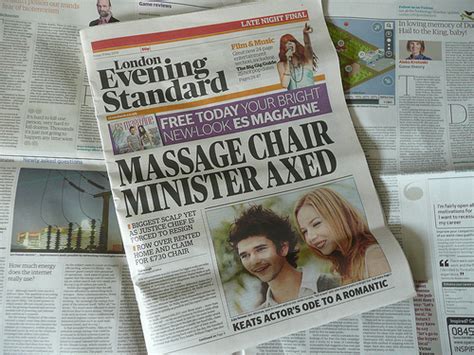
Standard Newspaper Font Size: A Quick Guide
Hey guys! Ever wondered about the standard newspaper font size and why it matters so much? It’s not just about making the text readable, but it plays a huge role in how we consume information. Think about it – if the font is too small, you’ll probably skip that article, right? Or if it’s too big and clunky, it might feel overwhelming. Newspapers have been around for ages, and over time, they’ve figured out this delicate balance. They’ve landed on specific font sizes that work best for most readers, considering everything from eyesight to the physical act of holding and reading a newspaper. Let’s dive deep into the world of newspaper typography and uncover the secrets behind those seemingly simple text choices.
Why Font Size Matters in Newspapers
So, why all the fuss about font size, especially in newspapers? It’s all about readability , plain and simple. Newspapers are designed to be consumed quickly. People often read them on the go, during their commute, or over a cup of coffee. If the font is too tiny, readers will struggle, get frustrated, and might just give up. This is where the standard newspaper font size comes into play. It’s a carefully chosen range that ensures most people, regardless of age or visual acuity, can comfortably read the content without straining their eyes. Think about older readers who might have presbyopia (age-related farsightedness) – a slightly larger font size makes a world of difference for them. Conversely, a font that’s too large can make the page look cluttered and can limit the amount of information that fits. Editors and designers have to consider the visual hierarchy of the page. Larger, bolder fonts are often used for headlines to grab attention, while body text needs to be accessible for sustained reading. The choice of font size also impacts the overall aesthetics of the newspaper. A well-proportioned layout with appropriate font sizes feels professional and inviting. Too much text crammed onto a page can feel intimidating, while too little can make the paper feel sparse. It’s a balancing act that involves understanding human perception and the practicalities of reading a physical medium. The goal is to keep readers engaged with the content, and font size is a critical, often overlooked, element in achieving that. It’s not just about what is being said, but how it’s presented, and font size is a key part of that presentation.
The Typical Newspaper Font Size Range
Alright, let’s get down to the nitty-gritty: what is the typical standard newspaper font size ? Generally, you’ll find that the body text in most newspapers falls within the range of 8 to 11 points . Yeah, you heard that right! It might seem small when you look at it on a screen, but in print, especially with the paper quality and layout of a newspaper, this range works wonders. The most common size you’ll likely encounter for the main articles is around 9 to 10 points . This sweet spot offers a good balance – it’s large enough for decent readability without taking up too much precious real estate on the page. Headlines, of course, are a different story. They need to be bold and grab your attention from across the room! So, you’ll see headline fonts ranging anywhere from 14 points to as high as 72 points or even more for the main masthead. Subheadings and captions usually sit somewhere in between, perhaps 11 to 13 points, to distinguish them from the main text but keep them connected. It’s fascinating how these small numerical differences can have such a big impact. Designers often experiment with different fonts too, as the x-height (the height of lowercase letters like ‘x’) can make a 9-point font look bigger or smaller than another 9-point font. So, while the point size is a good general guide, the actual visual size can vary slightly. But for the core content, that 8-11 point range, with 9-10 being the superstar, is the standard you’ll see time and again. It’s a tried-and-true formula that has served newspapers well for decades in delivering news effectively to millions of readers every single day.
Factors Influencing Font Size Choices
Now, what goes into deciding that specific standard newspaper font size ? It’s not like someone just picked a number out of a hat, guys! Several key factors influence these choices, and they all boil down to making the reading experience as smooth as possible. First off, we’ve got readability and legibility . This is paramount. The font needs to be easily distinguishable, with clear letterforms that don’t blur together, especially when printed on newsprint, which can sometimes be a bit… absorbent. A font that’s too condensed or has very thin strokes might get lost. Then there’s the target audience . Newspapers aim for broad appeal. They want everyone to be able to read their paper, from teenagers to grandparents. This means considering a range of visual abilities. A slightly larger font size is more forgiving for readers with less-than-perfect vision. Think about the newspaper’s layout and column width . Newspapers typically use narrow columns to make it easier for the eye to track from the end of one line to the beginning of the next without getting lost. Shorter line lengths require smaller font sizes to maintain a comfortable reading rhythm. If the columns were super wide like a book, you’d need a much larger font to avoid awkward eye movements. Printing limitations also play a role. Early printing presses and paper quality might have dictated certain font sizes. While modern technology offers more flexibility, historical practices and established conventions still hold sway. Aesthetics and brand identity are important too. The chosen font and its size contribute to the newspaper’s overall look and feel. Is it perceived as a serious, traditional paper, or a more modern, edgy publication? The font choices help communicate that. Finally, cost and space efficiency are always on the table. Newspapers have a finite amount of space on each page. Choosing a font size that balances readability with the amount of content that can fit is crucial for fitting in all the necessary news, advertisements, and features without making the paper excessively thick or expensive to produce. It’s a complex equation, but one that designers and editors have mastered over the years to deliver the news effectively.
Common Fonts Used in Newspapers
Beyond just the size, the actual font used also significantly impacts the standard newspaper font size experience. You won’t see Comic Sans in your daily paper, right? Newspapers tend to stick with reliable, legible typefaces that have stood the test of time. The most common category you’ll find is serif fonts . These are fonts with little ‘feet’ or decorative strokes at the ends of the letters, like Times New Roman or Georgia. Serif fonts are traditionally considered highly readable for long blocks of text because the serifs help guide the eye along the line. Think of them as little signposts for your eyes! Some of the classic newspaper fonts include Times New Roman , Garamond , and Baskerville . These have been used for decades, lending a sense of tradition and authority. More modern newspapers might opt for slightly tweaked versions or different serif families like Merriweather or Source Serif Pro to give a contemporary feel while retaining readability. On the other hand, some publications, especially those aiming for a cleaner, more modern aesthetic, might experiment with sans-serif fonts (fonts without the little feet, like Arial or Helvetica) for their body text. However, this is less common for the main body copy of traditional newspapers. Sans-serif fonts are often preferred for headlines, captions, or digital interfaces due to their clean, straightforward appearance. But for dense newsprint, the consensus often leans towards the readability offered by serif typefaces. The choice of font also depends on its x-height . As mentioned before, a font with a larger x-height will appear bigger and potentially more readable at the same point size compared to a font with a smaller x-height. So, a 9-point font of one family might look quite different from a 9-point font of another. Ultimately, the goal is to select a font that, at the chosen standard newspaper font size , delivers maximum clarity and a comfortable reading experience for the widest possible audience. It’s a blend of historical preference, typographic expertise, and a dash of modern adaptation.
Historical Evolution of Newspaper Typography
The standard newspaper font size and style we see today haven’t always been the norm, guys. Typography in newspapers has evolved dramatically over centuries, mirroring technological advancements and changing reading habits. In the early days of printing, typefaces were often larger and more ornate, partly due to the limitations of the printing technology and the desire to fill the page. As printing techniques improved and the demand for newspapers grew, there was a push towards more efficient use of space and clearer readability. The 19th and early 20th centuries saw the rise of various slab-serif and sans-serif fonts, driven by industrialization and a desire for modernity. However, the classic serif fonts, like those mentioned earlier, really solidified their place in newspaper body text during this period. They were deemed the most legible for long-form reading on less-than-perfect paper. The advent of phototypesetting in the mid-20th century offered more flexibility in font choices and sizes, but the core principles of readability remained. Then came the digital revolution. While digital screens have their own typographic considerations (often favoring sans-serifs and slightly larger sizes for on-screen reading), the established conventions of print newspapers have proven remarkably resilient. Many newspapers that transitioned online still maintain a typographic style that echoes their print heritage, including font choices and sizes that approximate the traditional standard newspaper font size . However, the rise of responsive design means that font sizes on websites and apps must adapt to different screen sizes. What works on a desktop monitor might be too small on a phone. This has led to a more dynamic approach to typography online, where relative units (like ems or rems) are used instead of fixed point sizes. Despite these digital shifts, the legacy of print typography continues to influence how news is presented, ensuring that the core principles of clarity and readability, honed over centuries, are still at the forefront of newspaper design, whether in ink or on screen. It’s a testament to how effective these typographic choices have been.
Tips for Improving Readability on a Budget
Conclusion: The Enduring Importance of Newspaper Font Size
So, there you have it! We’ve journeyed through the world of typography and explored the significance of the standard newspaper font size . It’s clear that this isn’t just an arbitrary choice; it’s a carefully considered element that profoundly impacts readability, user experience, and even the perceived credibility of a publication. From the historical evolution of printing to the practical constraints of page layout and the psychological effects of visual presentation, every decision about font size is deliberate. The common range of 8-11 points for body text, with 9-10 points being a popular sweet spot, is a testament to decades of refinement aimed at striking the perfect balance between conveying information efficiently and ensuring comfortable reading for a diverse audience. We’ve seen how factors like column width, font choice (serif vs. sans-serif), x-height, and even the quality of newsprint itself all play a role in this typographic equation. While the digital age presents new challenges and opportunities for typography, the fundamental principles championed by print newspapers – clarity, legibility, and accessibility – remain as relevant as ever. Whether you’re a seasoned reader, a budding designer, or just someone curious about the nuances of the media you consume, understanding the standard newspaper font size offers a valuable insight into the craft of communication. It reminds us that the way information is presented is just as important as the information itself. Keep an eye out next time you pick up a newspaper or read an article online; you might just notice the careful thought that went into those letters on the page. It’s this blend of art, science, and practicality that makes newspaper typography so enduringly effective.